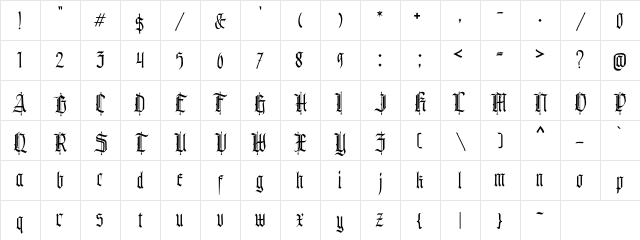
Bullgine DEMO Regular Free Font
Bullgine DEMO Regular
Foundry: Letterhend Studio
Designer: Eko Fitriono
Design Context for Bullgine DEMO
Bullgine DEMO is a composed and adaptable typeface that performs quietly and consistently across a wide range of design contexts.
Pro Tip: Use Bullgine DEMO in both headline and body roles to test its range before committing to a single application.